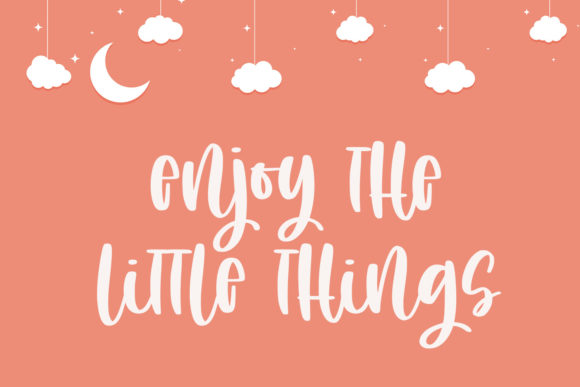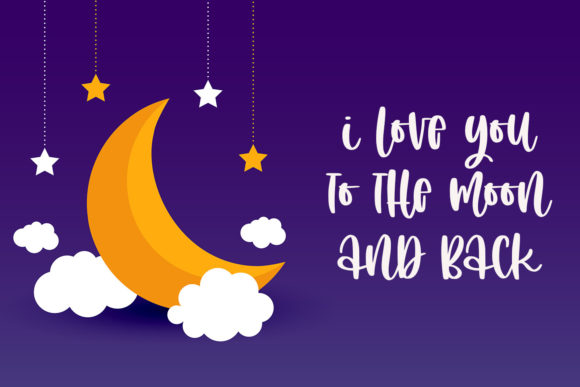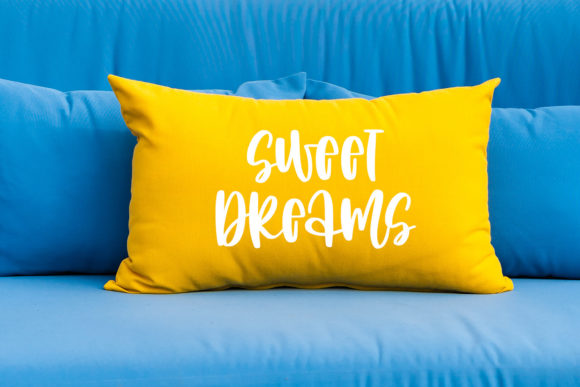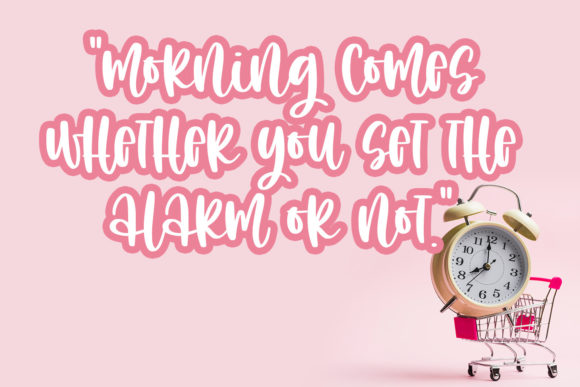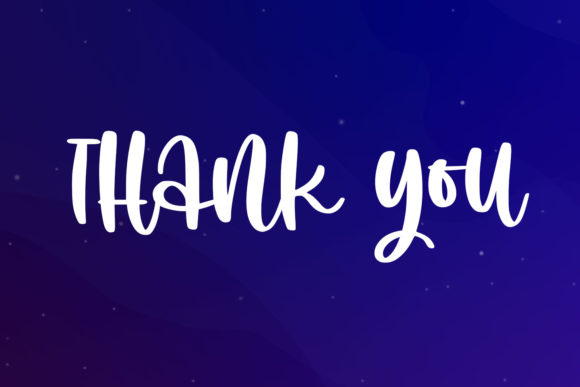
Fabulous Night Font
About Fabulous Night Font
Fabulous Night is unique and chic script. It is great for quotes, t-shirt designs, mugs, tote bag designs, cards, banners, social media, and anything of your projects.